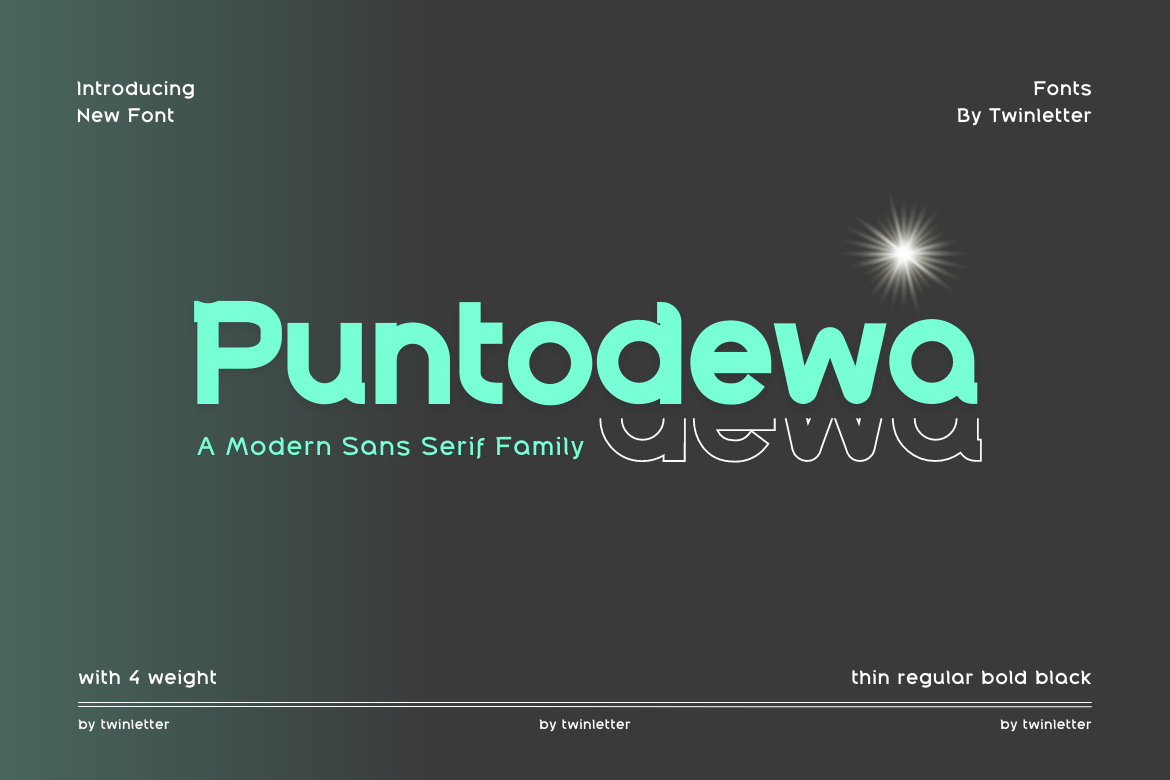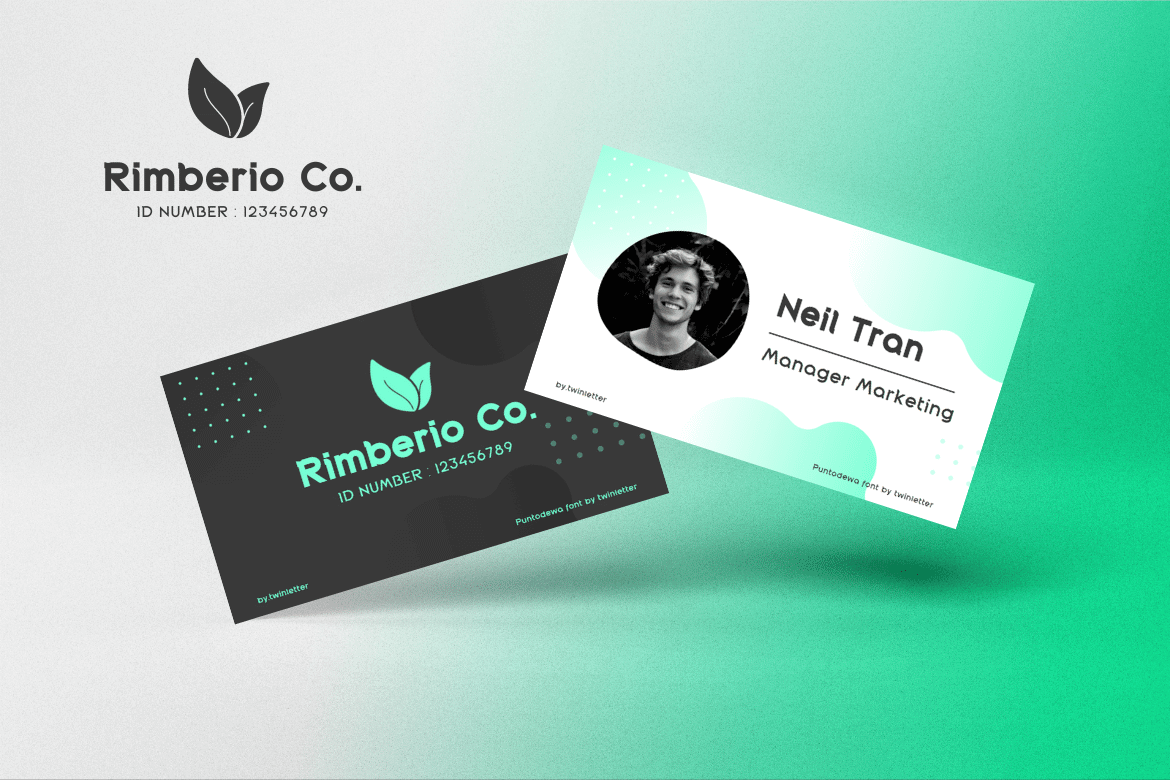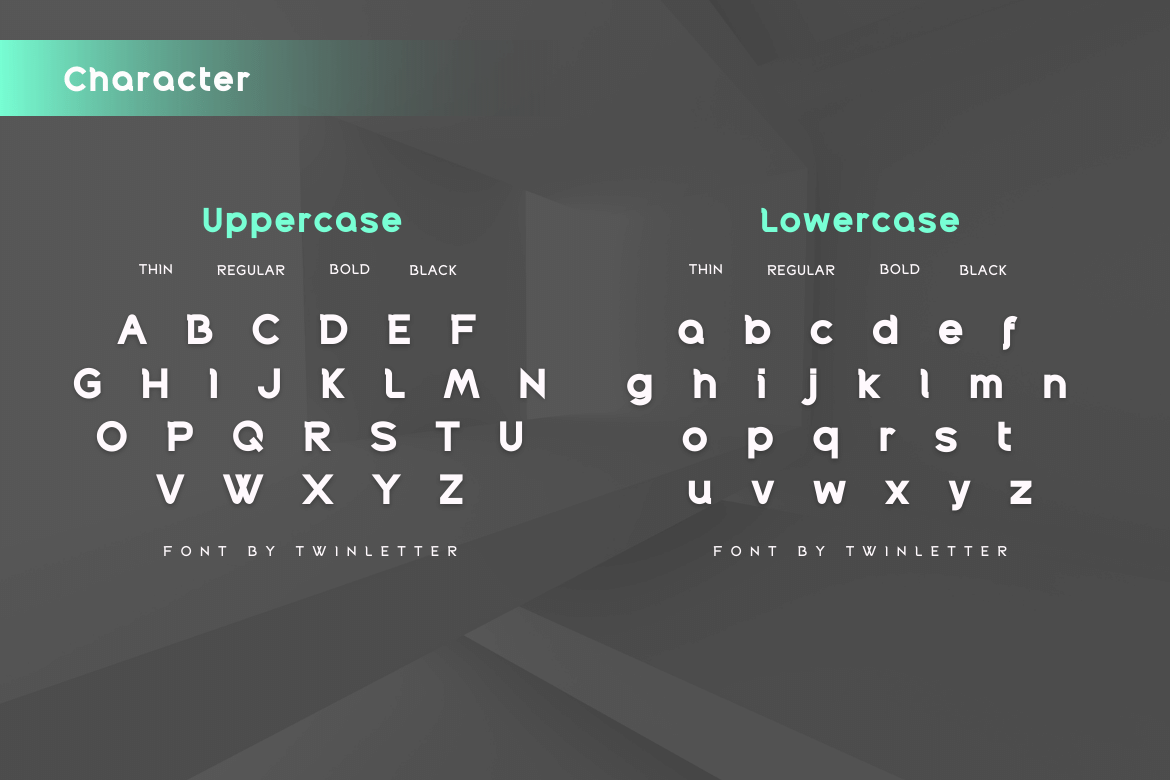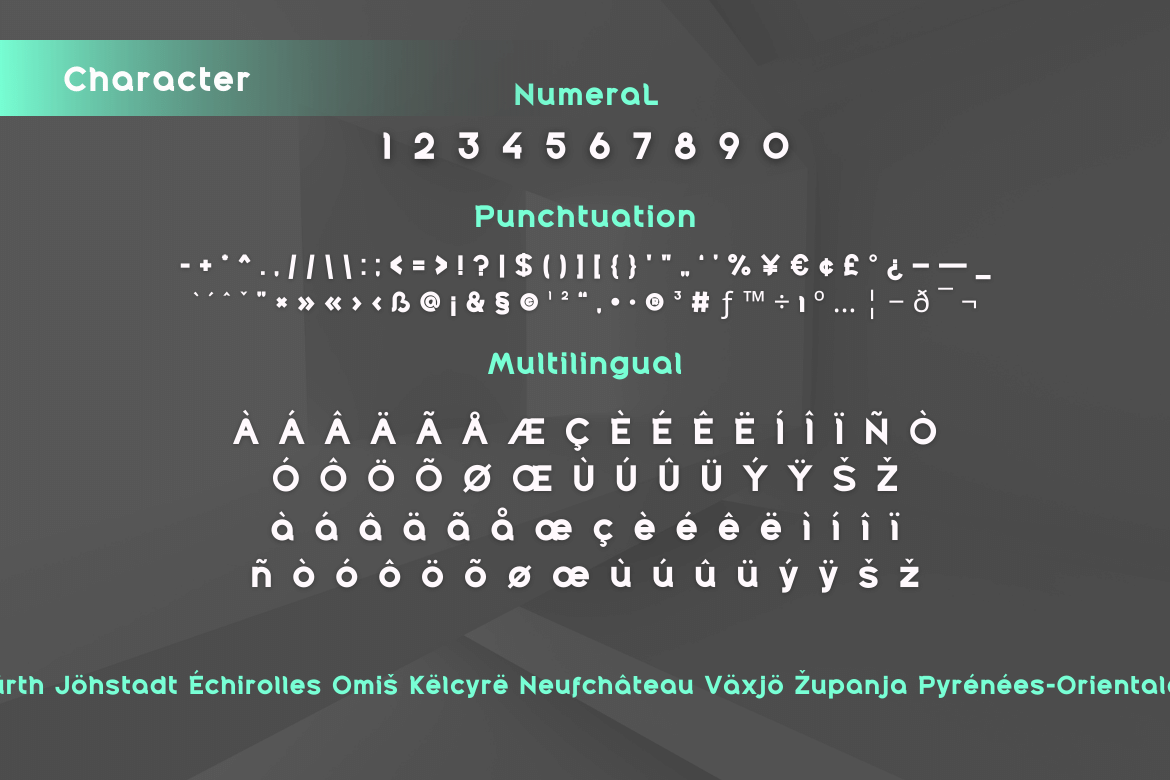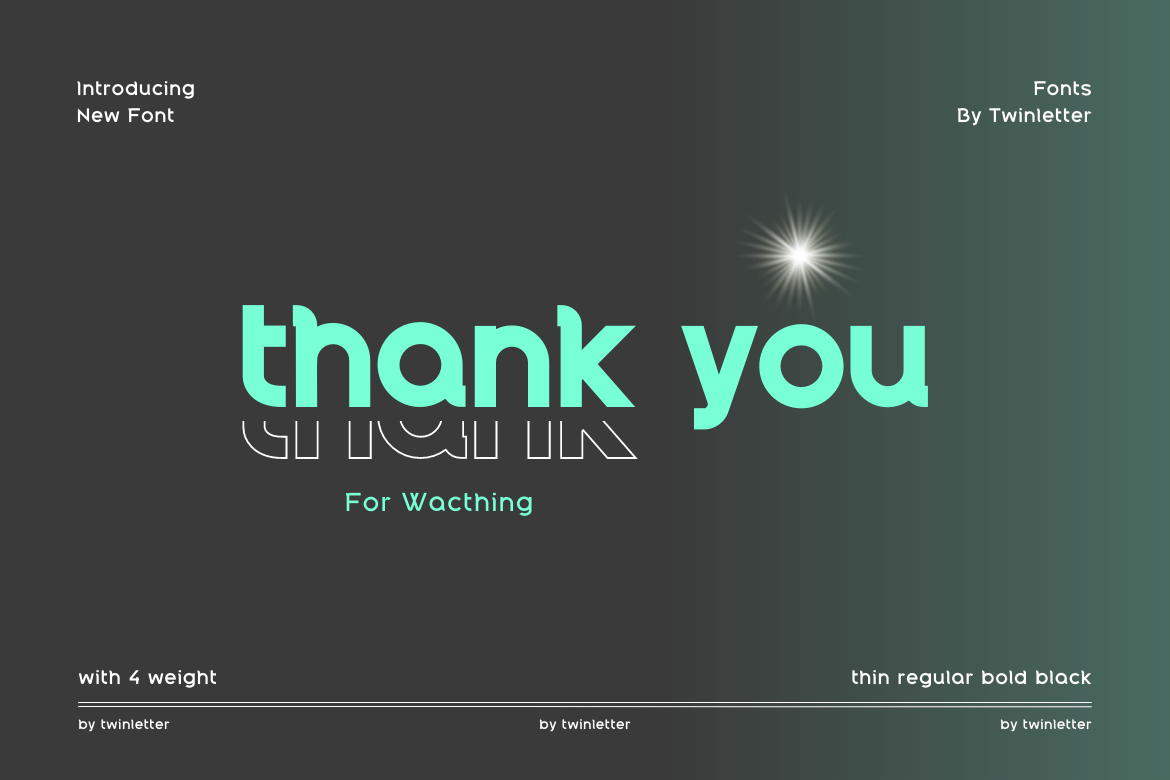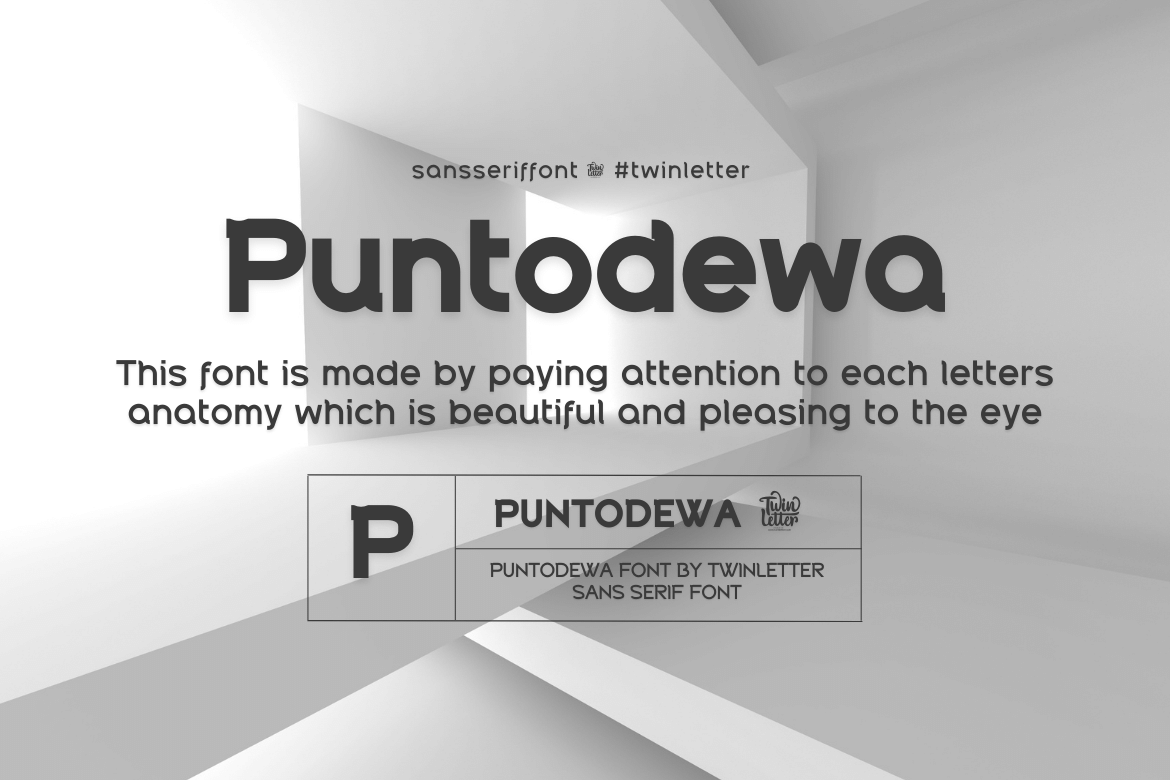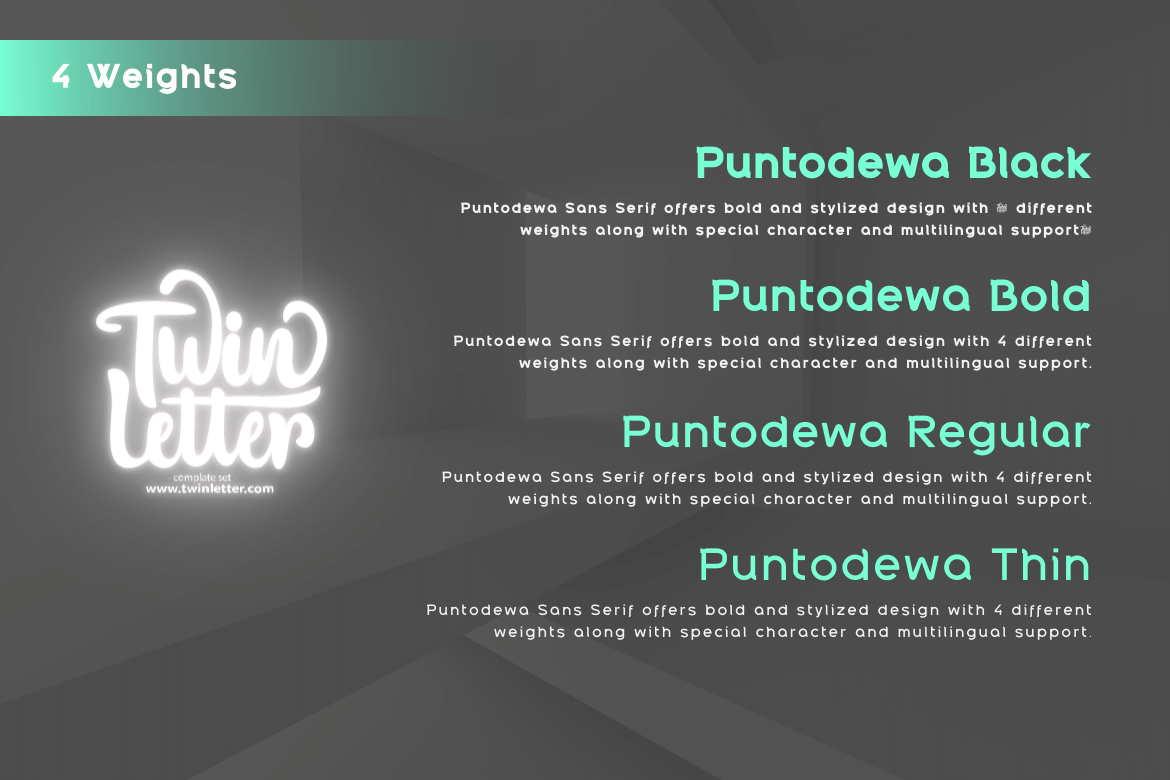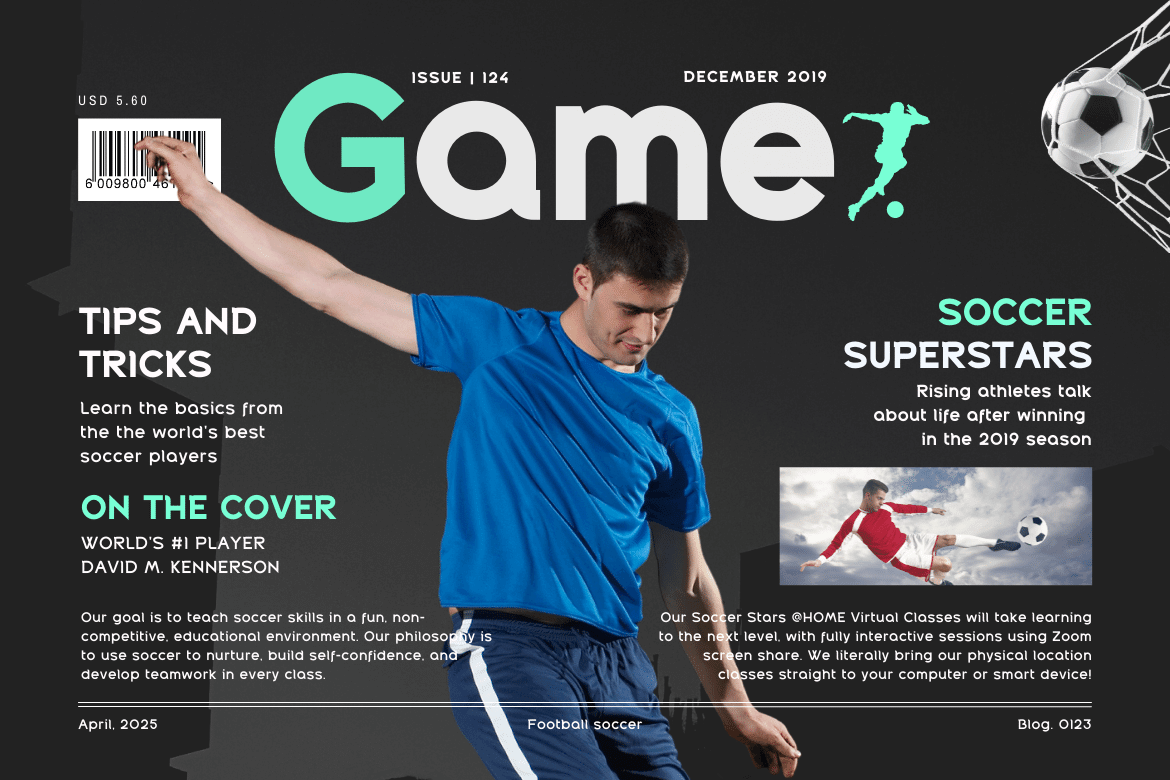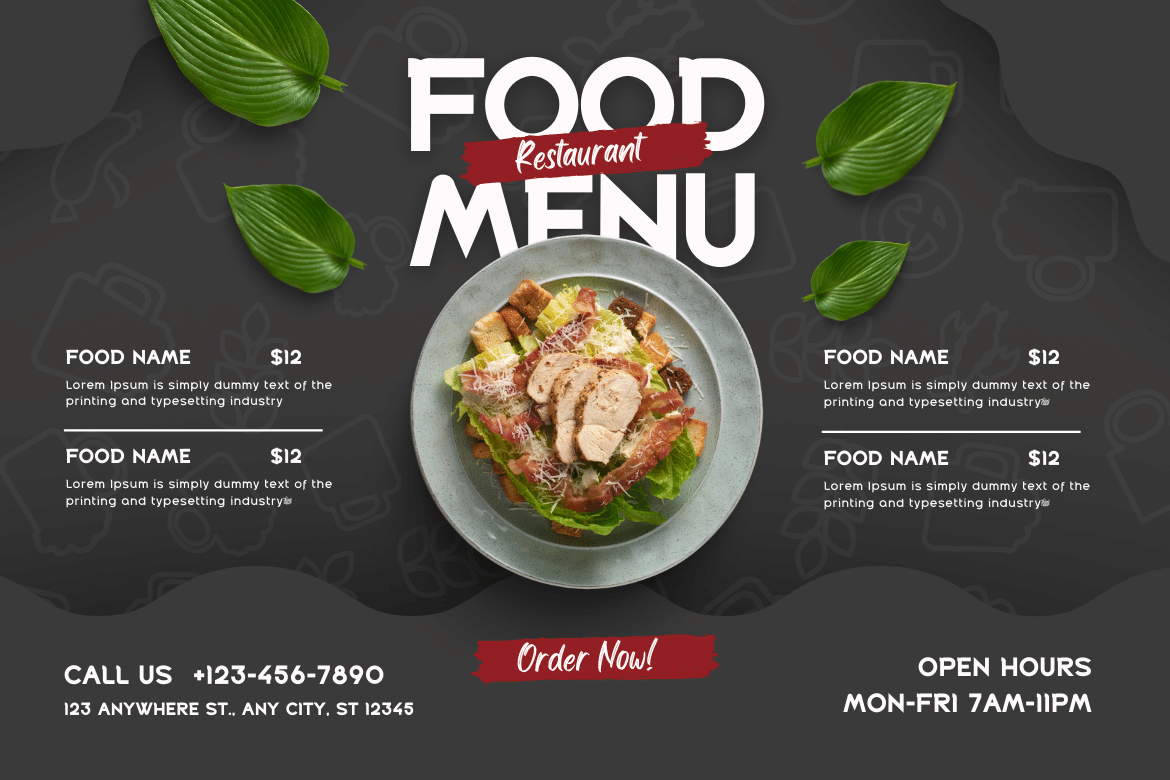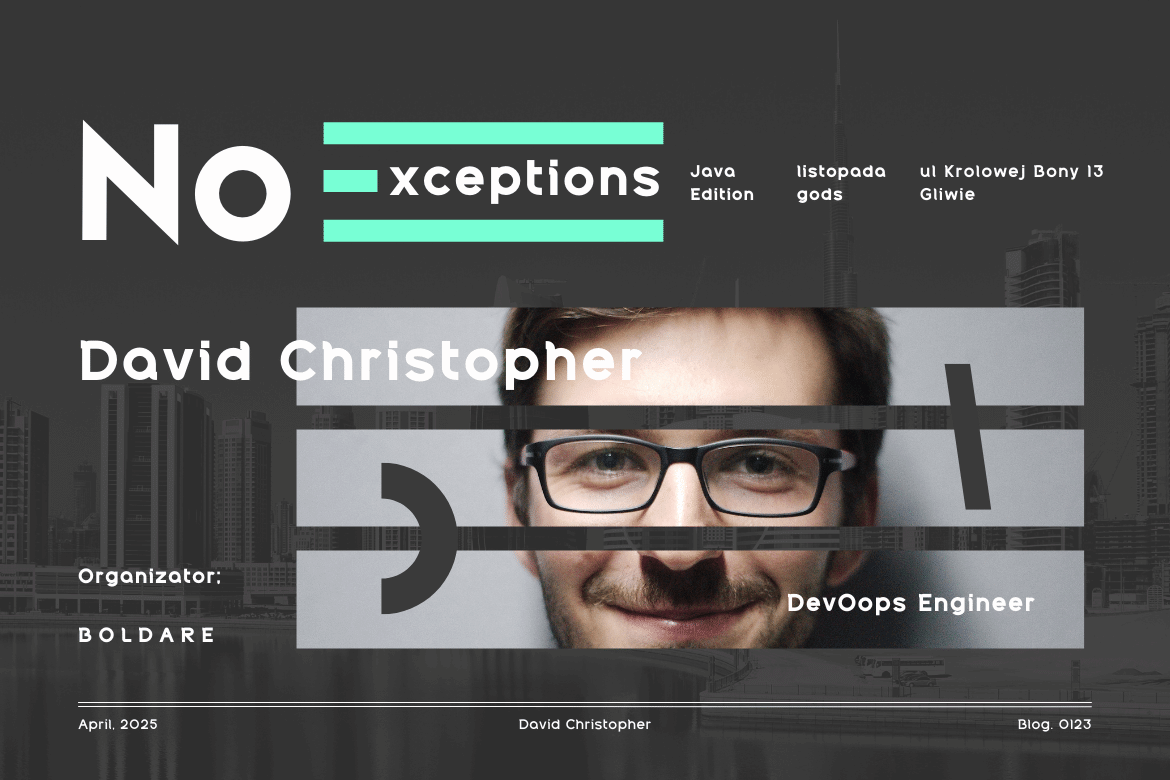
Puntodewa
Puntodewa Sans serif font.
The font design is influenced by the Serif family-style and geometric shapes, which makes it easy for us to create compositions in designs that are modern and unique. This font is our best effort to make your project nice and special, and hope you enjoy it.
• Fonts include multilingual support for; Afrikaans, Albanian, Croatian, Czech, Danish, Dutch, English, Estonian, Finnish, French, German, Hungarian, Italian, Norwegian, Polish, Portuguese, Slovak, Slovenian, Spanish, Swedish